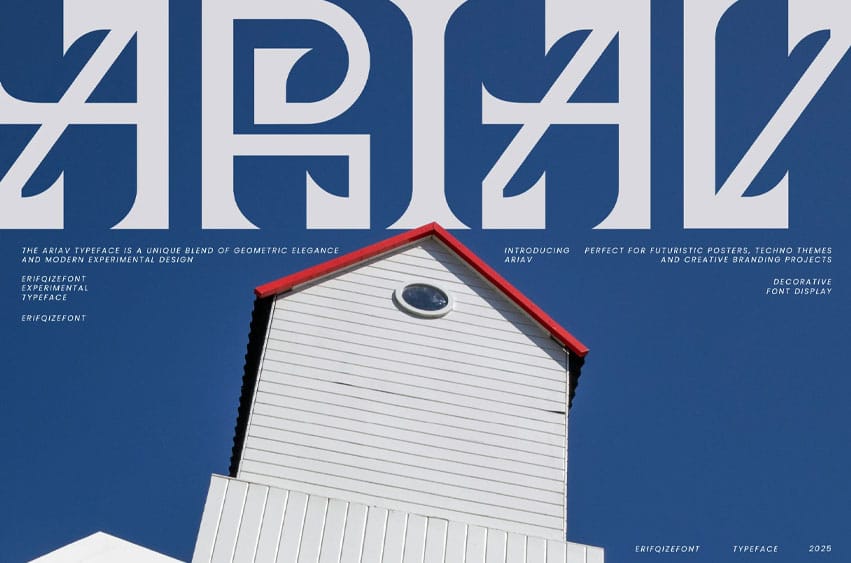
Ariav Font is a decorative experimental typeface that blends geometric precision with bold futuristic aesthetics. Its unique letterforms feature sharp angles, balanced symmetry, and creative structural cuts — perfect for designers seeking a modern and avant-garde look.
This typeface works beautifully for logos, techno posters, sci-fi titles, branding, or skateboard sticker designs, giving every layout a distinctive and striking identity. With multilingual support, Ariav expands your creative possibilities across global projects.
Ariav captures the spirit of experimental design — clean, daring, and visionary.